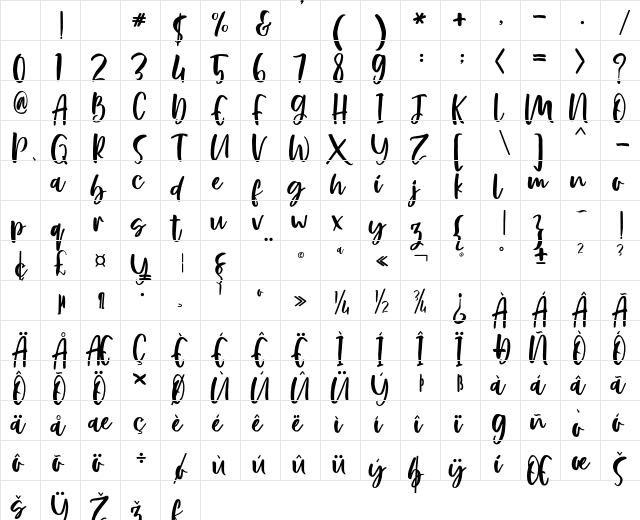
Complete Rosemerry Regular glyph index. Displaying only characters natively supported by Rosemerry Regular font.
Rosemerry is a composed and adaptable typeface that performs quietly and consistently across a wide range of design contexts.